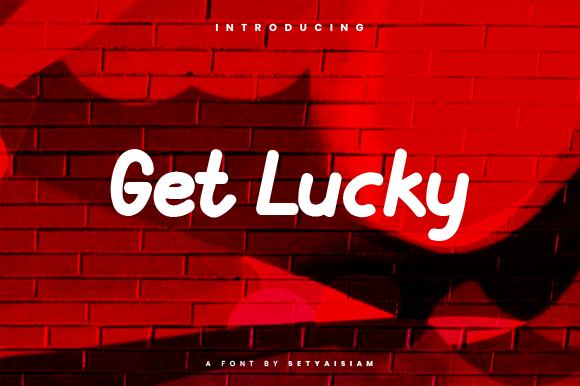
Get Lucky Font
Feast your eyes on Get Lucky, the display font that commands attention with its audacious attitude! In a world saturated with mundane fonts, Get Lucky emerges as a true maverick, a font that refuses to conform to the ordinary.
Unleash your creative potential with Get Lucky, the font that's ideal for creating designs that spark curiosity and leave a lasting impression. Whether you're crafting eye-catching logos, captivating posters, or alluring social media graphics, Get Lucky will elevate your designs to new heights of brilliance.
Step into a world of boundless creativity, where your designs take center stage and captivate your audience. With Get Lucky as your trusted companion, you'll craft visual masterpieces that ignite imaginations and leave an enduring mark on the world.
Get Lucky isn't just a font; it's an experience. Immerse yourself in its bold strokes, its playful curves, and its undeniable charisma. Let your creativity soar as you explore the endless possibilities that Get Lucky unlocks.
With Get Lucky by your side, you'll create designs that resonate with your audience, designs that speak volumes and leave them yearning for more. Get ready to make a statement, to break free from the mundane, and to embark on a creative journey like no other.
This extraordinary font beckons you to embrace your individuality and let your creative spirit run wild. Seize the opportunity to own Get Lucky today and unlock the gateway to design greatness. It's time to leave your mark on the world, one stunning design at a time.